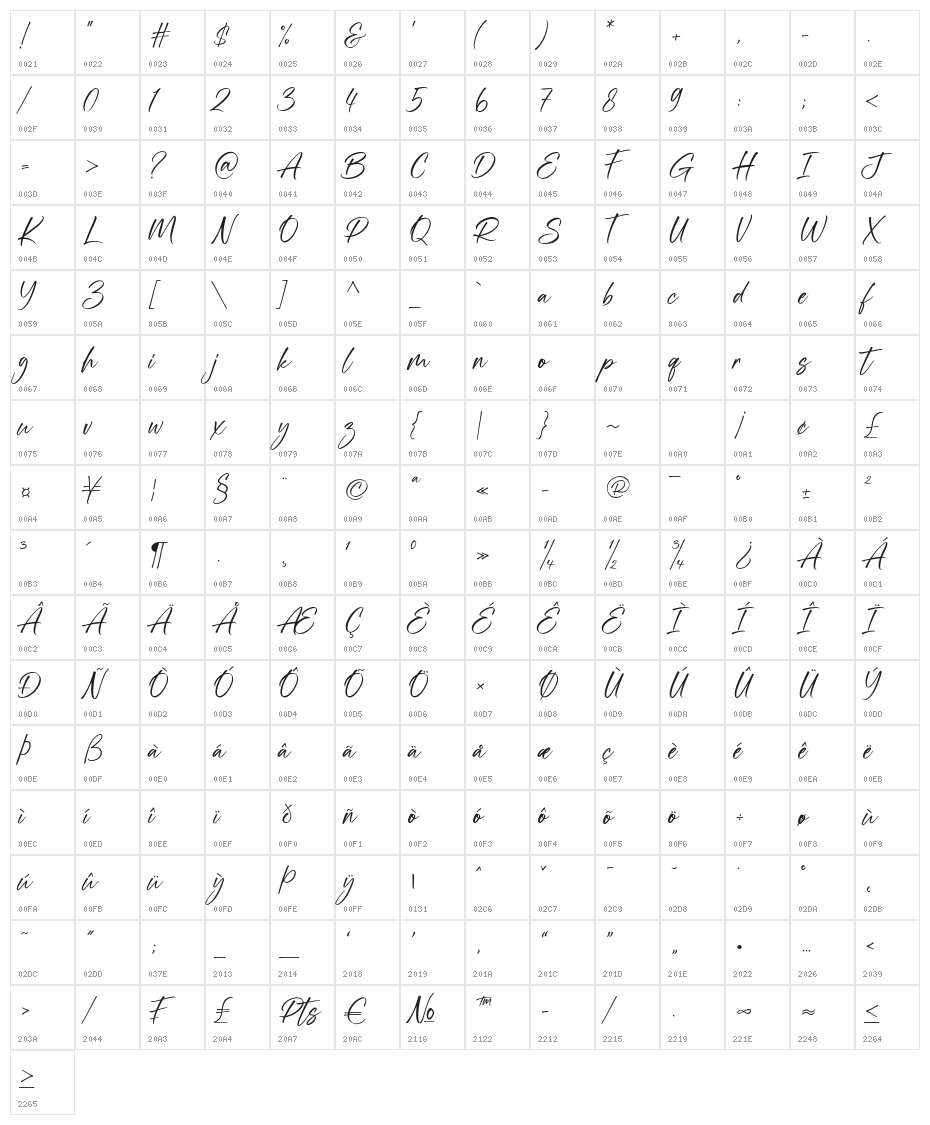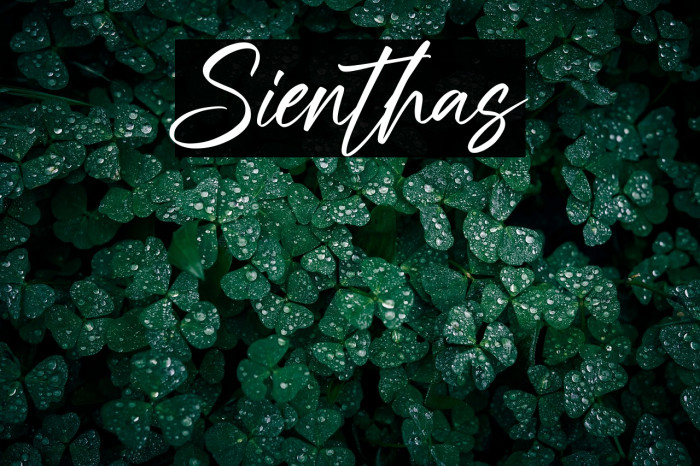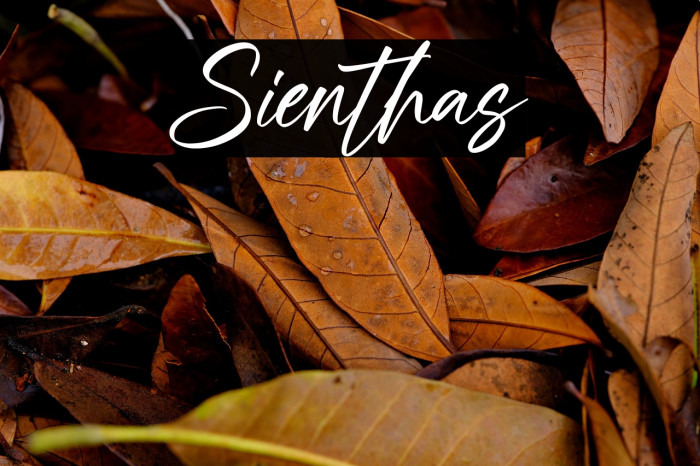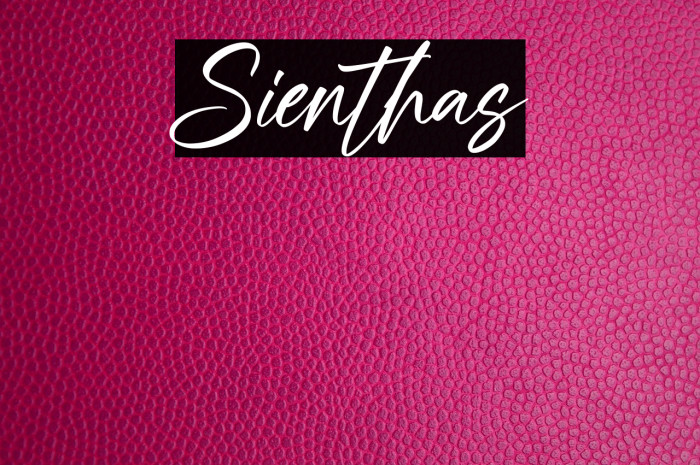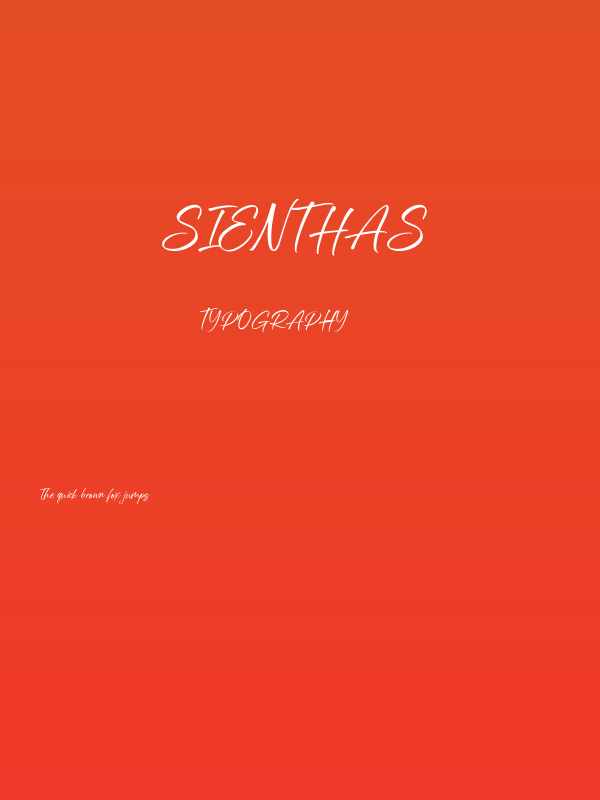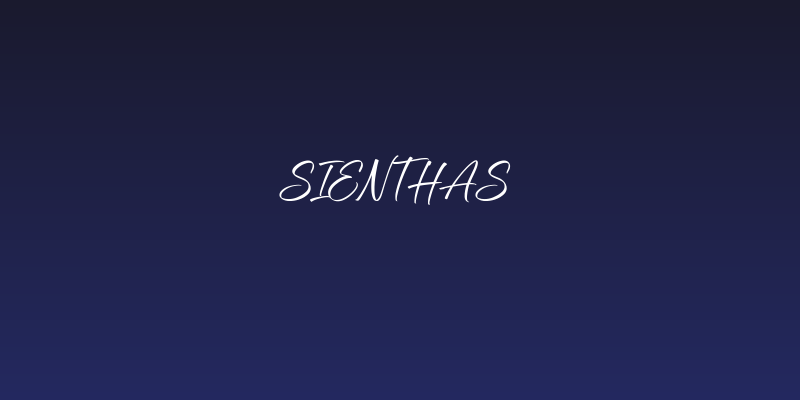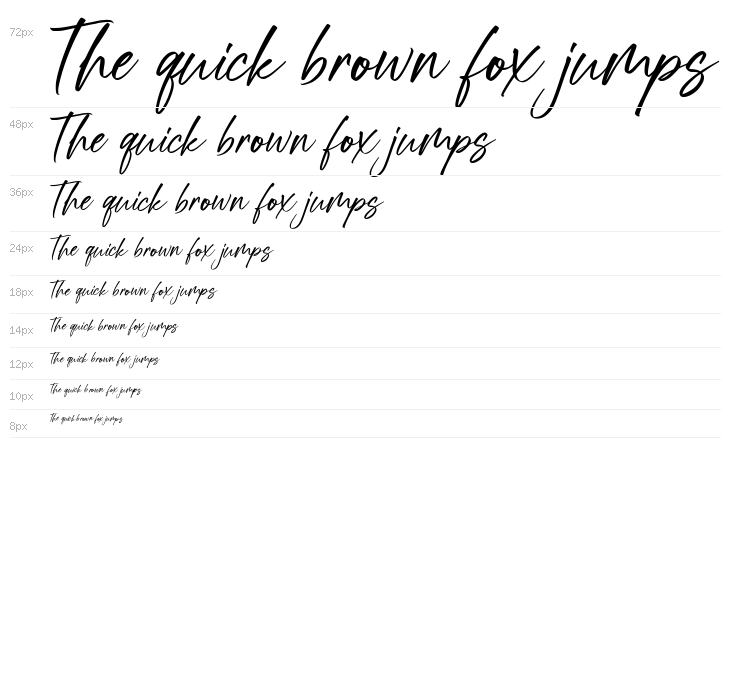
Sienthas Font
Sienthas Description
This elegant script font features fluid, cursive strokes that convey a sense of sophistication and grace. The uppercase letters are tall and slightly slanted, with sweeping curves that add a dynamic flow to the text. The lowercase letters maintain a consistent style, with smooth connections between characters, enhancing readability while preserving the font's artistic flair. Numbers and special characters are designed to match the font's overall aesthetic, ensuring a cohesive look across all text elements. The font's delicate lines and stylish appearance make it ideal for projects that require a touch of elegance and personal expression.